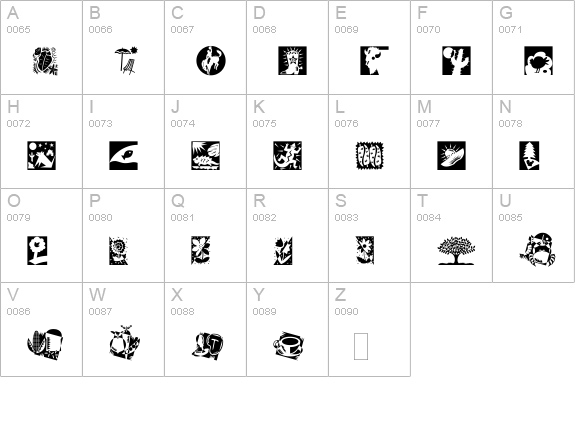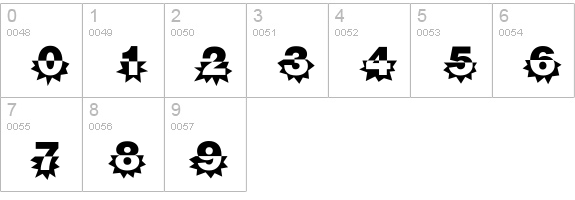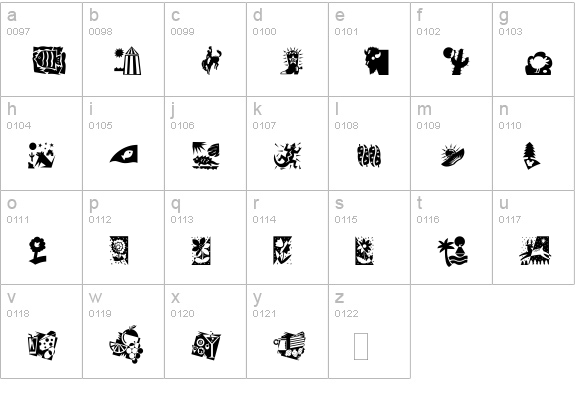
DF Naturals Font Details
DF Naturals is a stunning and versatile font that effortlessly combines a natural, organic feel with a modern touch. Its sleek and elegant design makes it perfect for a wide range of design projects, from branding to packaging and everything in between. With its smooth curves and unique character shapes, DF Naturals adds a touch of sophistication to any project. Whether you're creating a logo, poster, or website design, this font is sure to make a statement and leave a lasting impression. Best of all, DF Naturals is completely free to download at FontsMarket.com. So go ahead and give your designs that extra touch of elegance with this beautiful and stylish font.